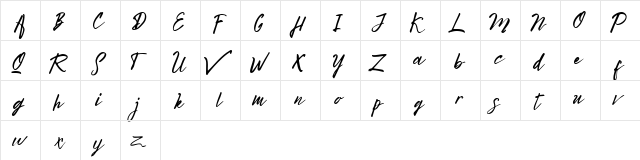
Bright Sunshine Demo Regular
| Foundry | Putra Khan Studio |
| Designer | Putra Khan |
Design Context for Bright Sunshine Demo Typeface
Bright Sunshine Demo is a composed and adaptable typeface that performs quietly and consistently across a wide range of design contexts.